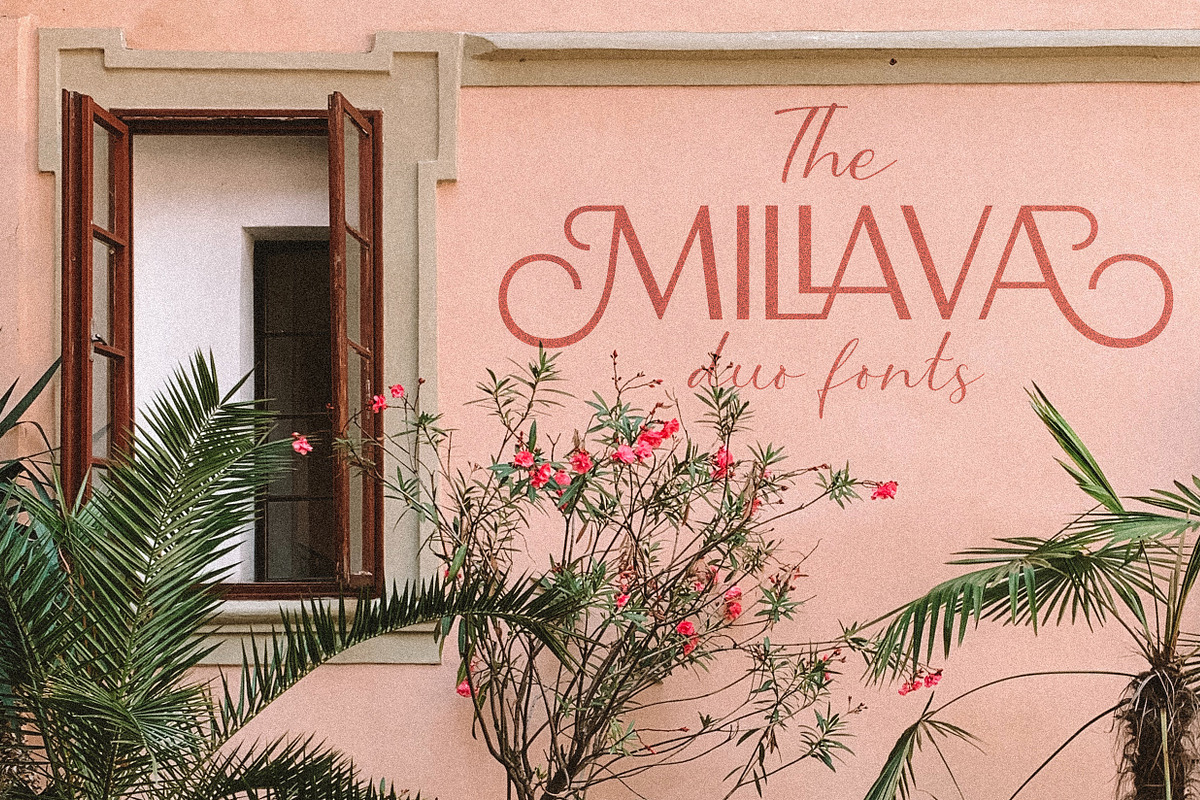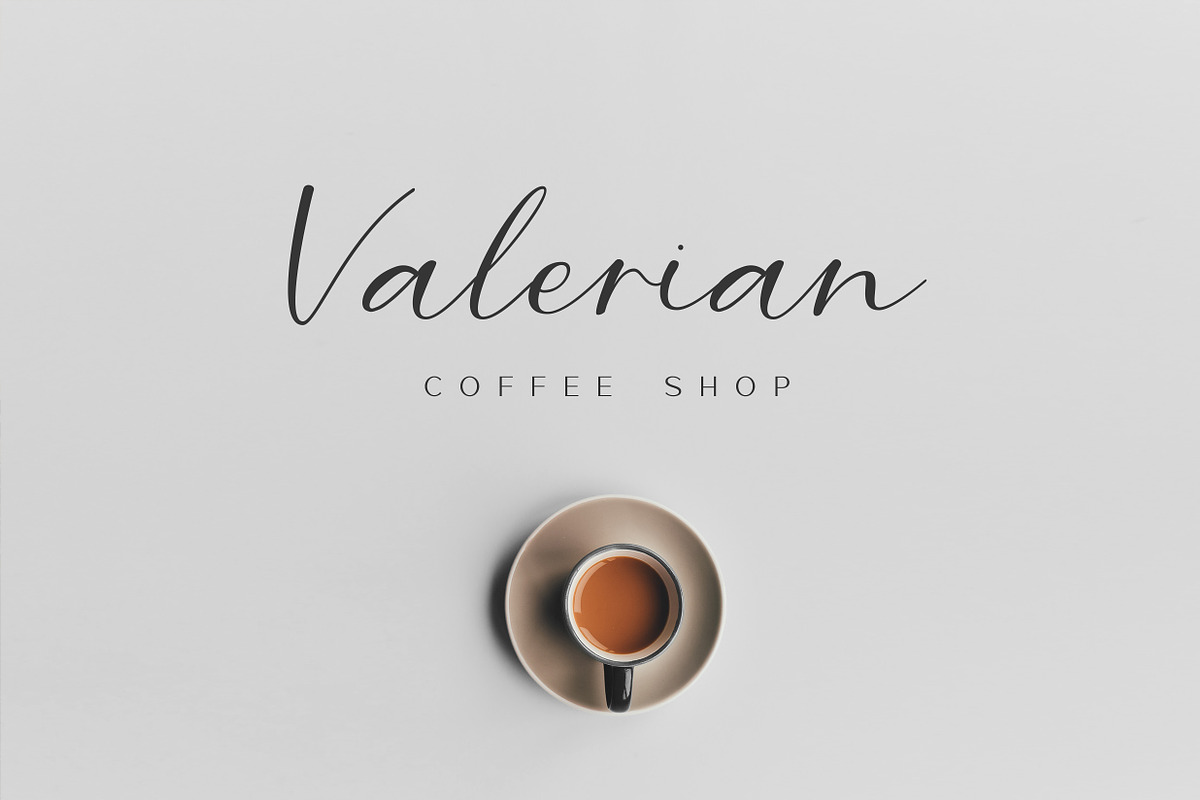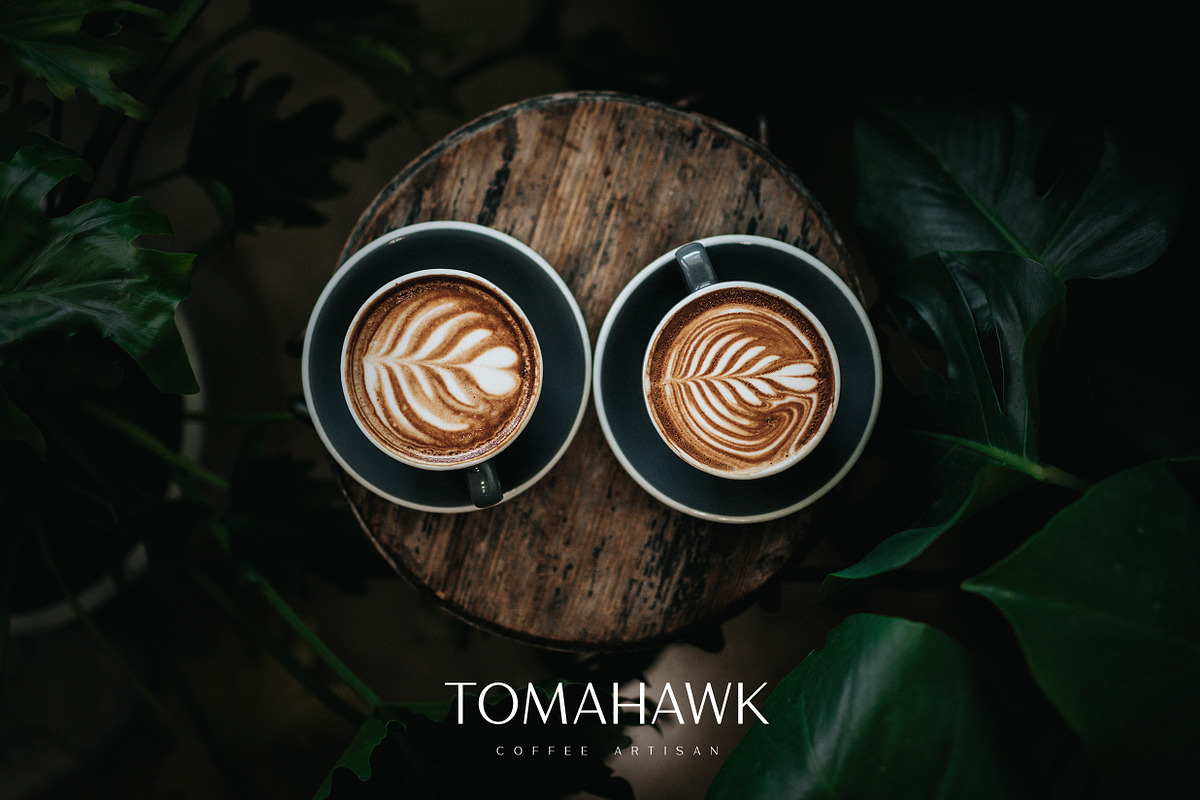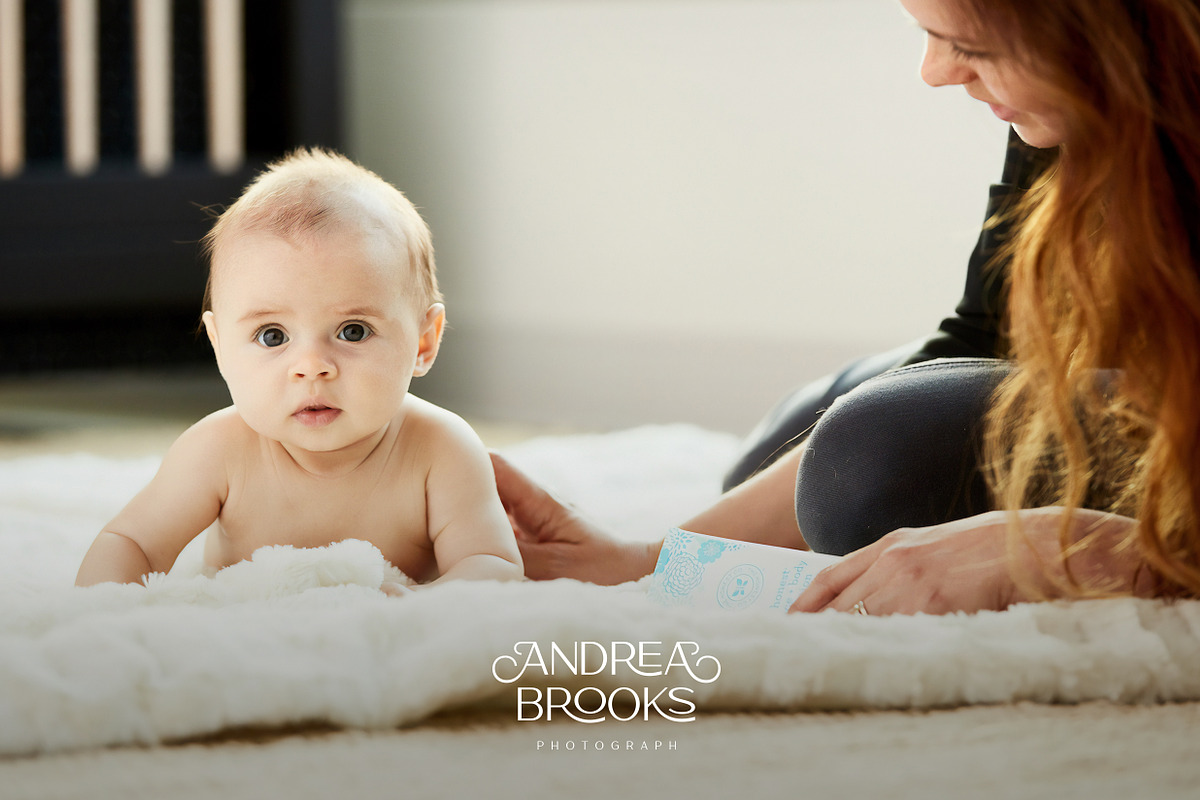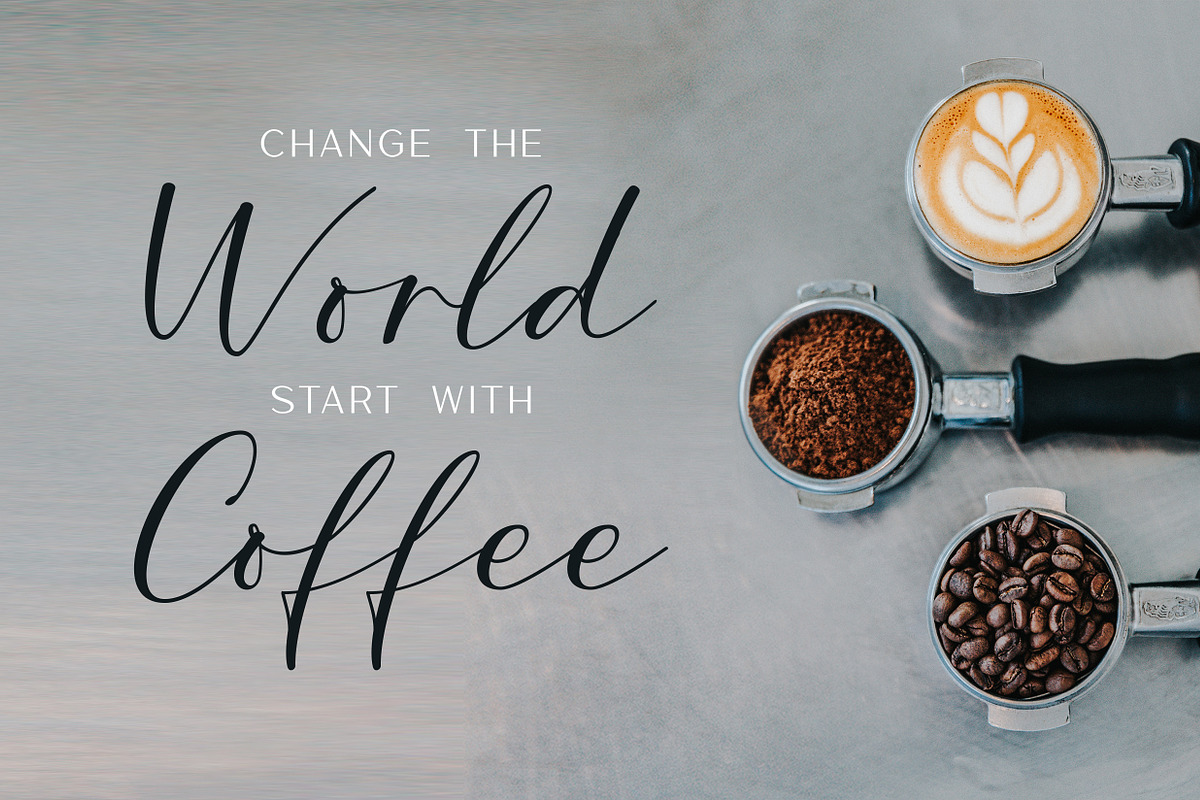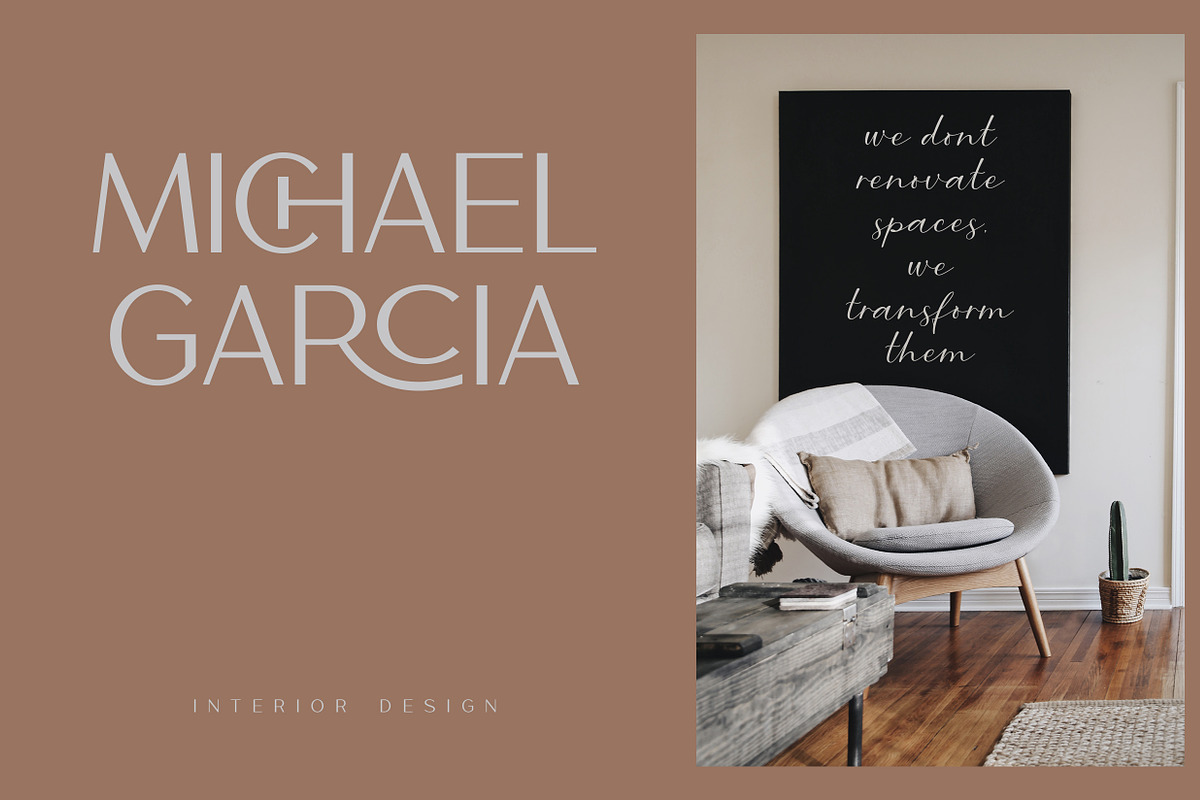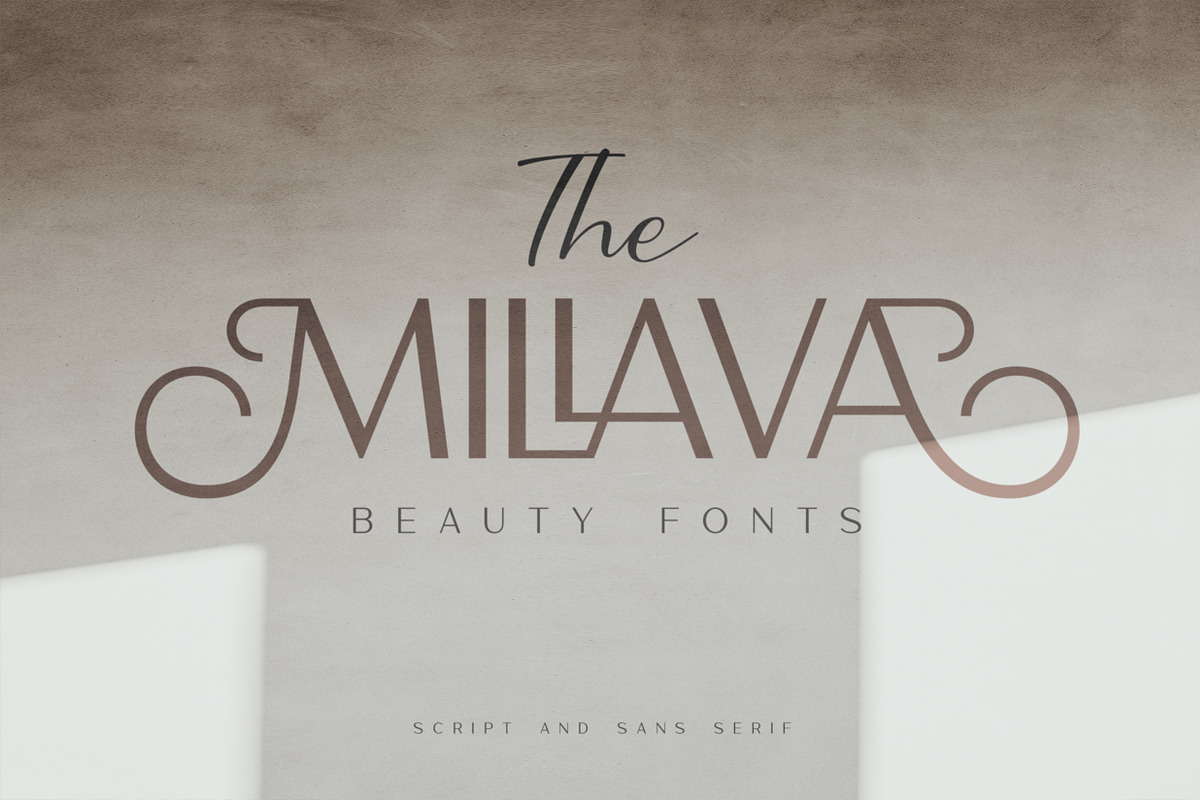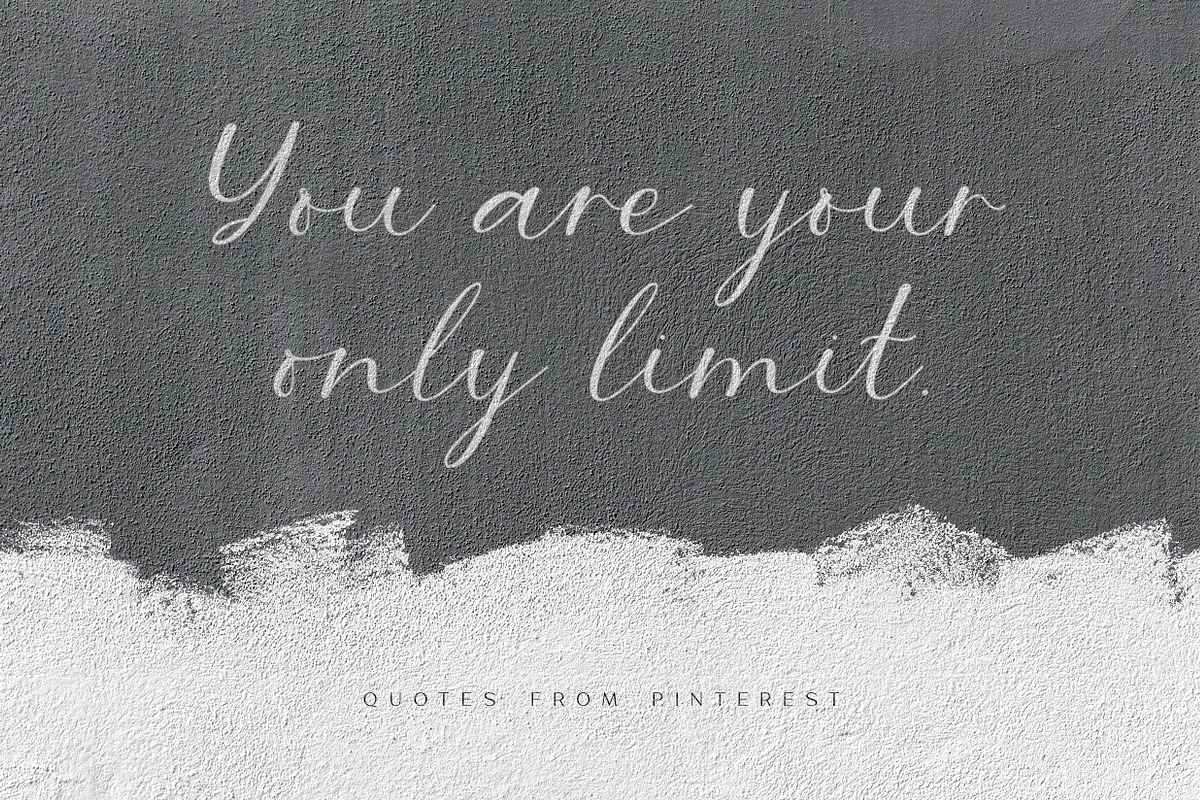
The Millava - Duo Beauty Fonts
Do you ever feel like you really wanna have a fonts that really fit into any kind of events. Just like a very good and comfort sneakers that always look good even when you're in dress or in a jeans. That's what we came from. And please welcome, The Millava. A pair of swashy decorative sans-serif and modern calligraphy script font. Carefully crafted every single letter with the realistic technic of swashes so you'll still get the logical and natural flow in each letters just like drawn by hand.
Both are done by click and click for every letters so it will absolutely clean edges. Good for big and small size of usage.
- The Millava Regular
- The Millava Script Regular